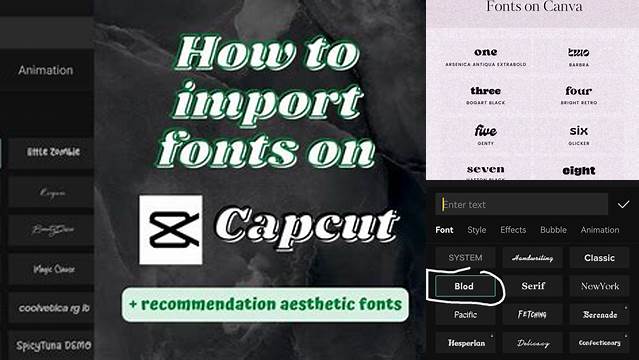
Cool Fonts For CapCut: Make Your Videos Pop!
Are you looking to enhance your video editing with aesthetic fonts for CapCut? You've come to the right place! Choosing the right font can dramatically change the look and feel of your videos, making them more engaging and professional. In this guide, we’ll dive deep into the best aesthetic fonts available for CapCut, how to use them, and tips for making your videos stand out. Let's get started, guys!
Why Aesthetic Fonts Matter in Video Editing
Aesthetic fonts are more than just pretty letters; they're a crucial element in visual storytelling. Think about it – the font you choose sets the tone and communicates the message just as much as the visuals themselves. A playful, whimsical font might be perfect for a fun vlog, while a sleek, modern font could elevate a professional business presentation. Using the right font ensures that your text complements your video's overall aesthetic, making it more appealing and effective.
Fonts have the power to evoke emotions and create associations. A handwritten font can feel personal and intimate, drawing viewers closer. A bold, sans-serif font can project confidence and authority. When you select fonts carefully, you're not just adding text; you're adding layers of meaning and enhancing the viewer's experience. In the world of video editing, where first impressions matter, choosing the right aesthetic font can be the key to capturing and retaining your audience's attention.
Furthermore, consistent use of aesthetic fonts across your videos can help build your brand identity. Just like logos and color palettes, fonts can become recognizable elements that viewers associate with your channel or business. This consistency helps create a cohesive and professional look, reinforcing your brand message and making your content more memorable. So, investing time in finding the perfect fonts is an investment in your brand's long-term success.
Top Aesthetic Font Categories for CapCut
Choosing the perfect aesthetic font for your CapCut projects can feel overwhelming with so many options available. To simplify things, let's break down some top font categories that consistently deliver a strong visual impact:
1. Elegant Serif Fonts
When you want to add a touch of sophistication and class to your videos, elegant serif fonts are the way to go. These fonts are characterized by their delicate serifs (the small strokes at the end of letters) and graceful curves, which lend a sense of refinement and timelessness. Think of fonts like Times New Roman, Garamond, or Playfair Display. These fonts are perfect for projects that require a high-end feel, such as wedding videos, luxury product showcases, or professional documentaries.
The beauty of serif fonts lies in their readability and versatility. They work well in both headings and body text, making them a reliable choice for various design needs. In CapCut, you can use serif fonts to create elegant titles, subtitles, and lower thirds that enhance the overall aesthetic of your video. Just remember to choose a font size and color that complements your visuals, ensuring that your text is both legible and visually appealing.
Moreover, experimenting with different weights and styles within the serif font family can add depth and interest to your designs. For example, you could use a bold serif font for headings to grab attention and a lighter weight for body text to improve readability. Combining different serif fonts can also create a unique and sophisticated look, but be sure to maintain a sense of balance and harmony in your design.
2. Modern Sans-Serif Fonts
For a clean, contemporary look, modern sans-serif fonts are an excellent choice. Unlike serif fonts, sans-serif fonts lack the small strokes at the end of letters, giving them a more streamlined and minimalist appearance. Fonts like Helvetica, Arial, and Montserrat fall into this category. These fonts are incredibly versatile and work well in a wide range of video projects, from tech tutorials to lifestyle vlogs.
The simplicity of sans-serif fonts makes them highly readable, especially in digital formats. They are perfect for on-screen text, ensuring that your message is clear and easy to understand. In CapCut, you can use sans-serif fonts to create sleek and modern titles, captions, and annotations that enhance your video's visual appeal without distracting from the main content. Plus, their clean lines and geometric shapes give your videos a professional and polished look.
Additionally, sans-serif fonts are incredibly adaptable, making them easy to pair with other fonts and design elements. You can combine a bold sans-serif font with a script font for a dynamic and eye-catching effect, or use different weights and styles within the same font family to create visual hierarchy and emphasis. When working with sans-serif fonts, pay attention to kerning and letter spacing to ensure optimal readability and a balanced design.
- Font Squirrel: Another great resource for free, commercial-use fonts.
Choosing the right aesthetic fonts for CapCut can significantly enhance the quality and impact of your videos. By understanding the different font categories, knowing how to add and use fonts in CapCut, and following our tips for creating stunning video text, you'll be well on your way to making videos that stand out. So go ahead, experiment with different fonts, and let your creativity shine through! Happy editing, guys!